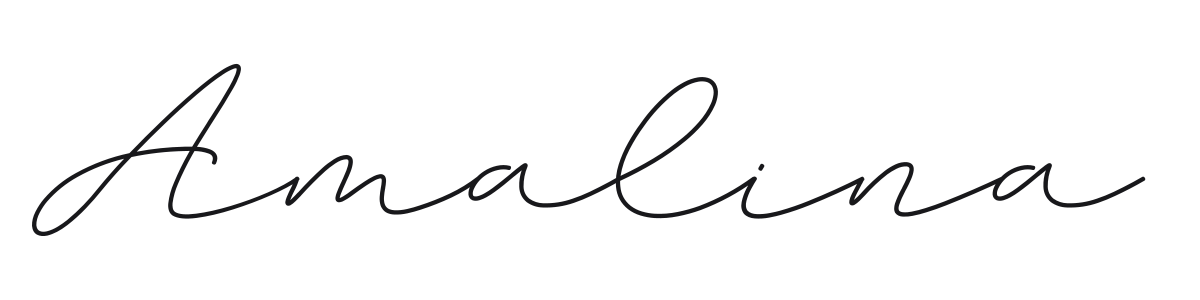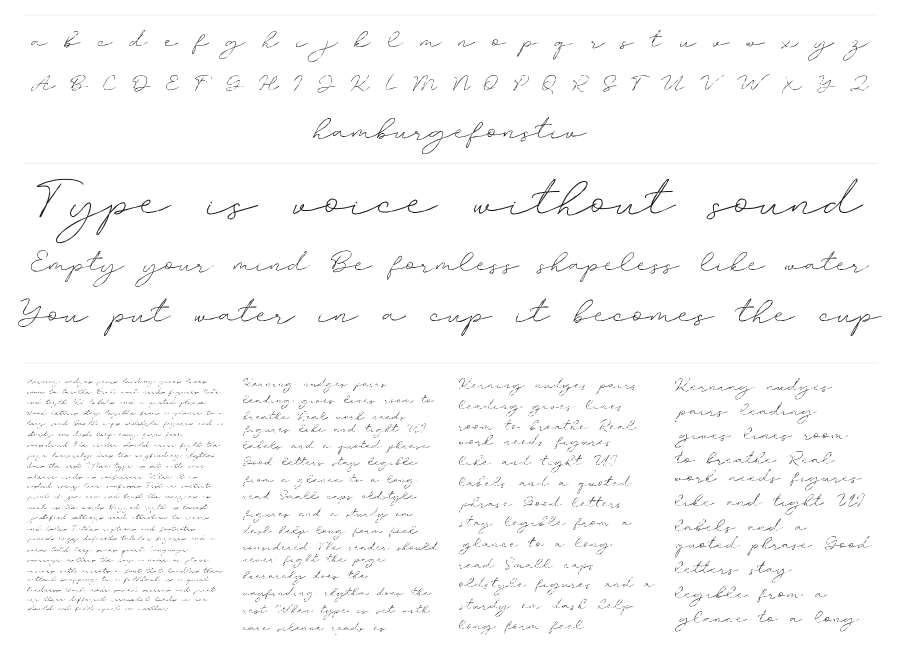
Amalina
Amalina is a thin, continuously connected cursive script that flows like a single unbroken stroke across the page. Its long, sweeping entry and exit strokes give it a ribbon-like quality, balancing elegance with a sense of effortless movement. At its best in logos, wedding stationery, and any context that calls for refined, handwritten charm.